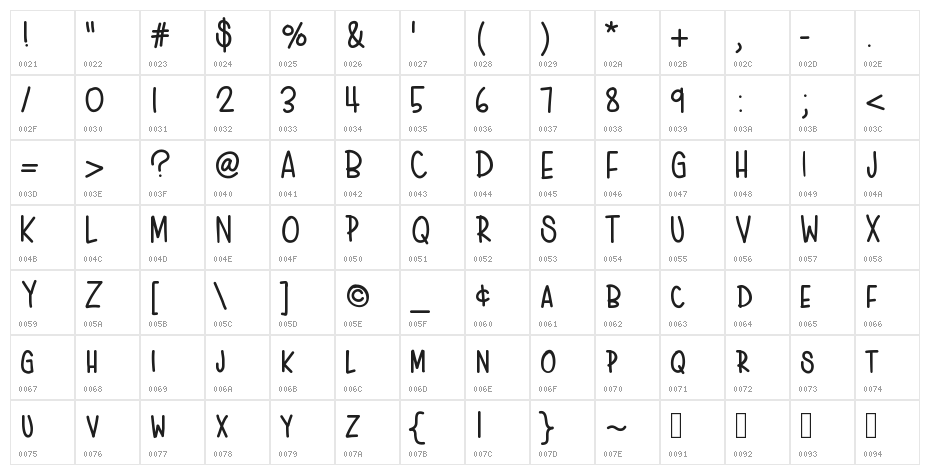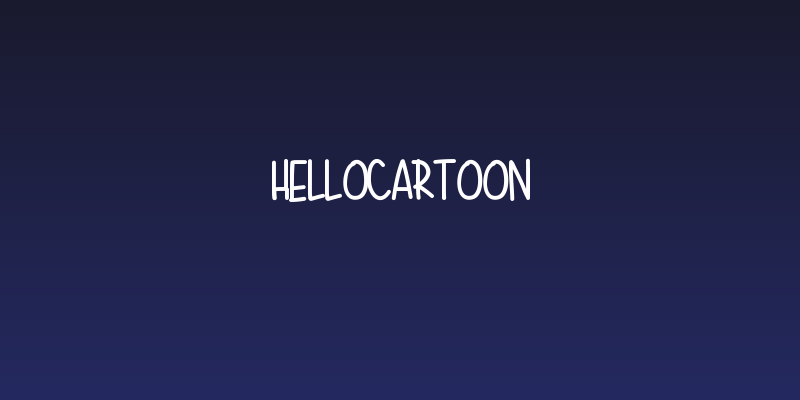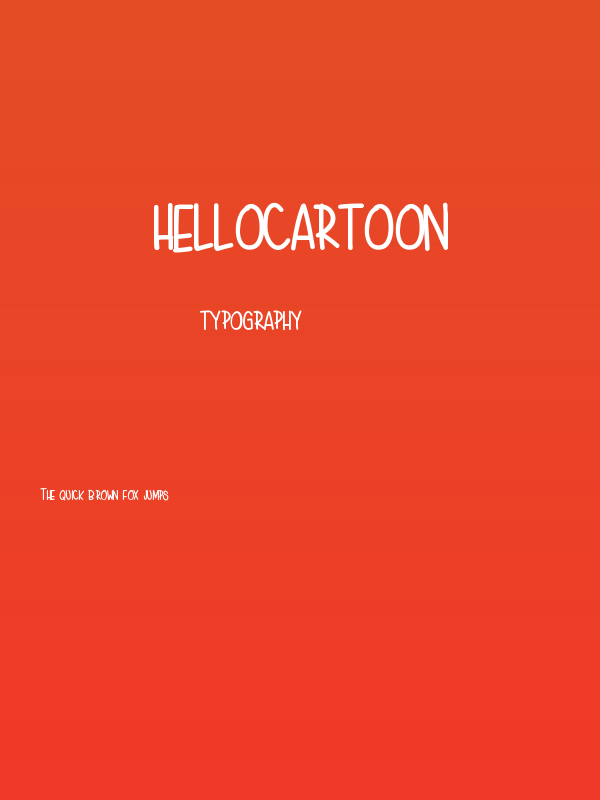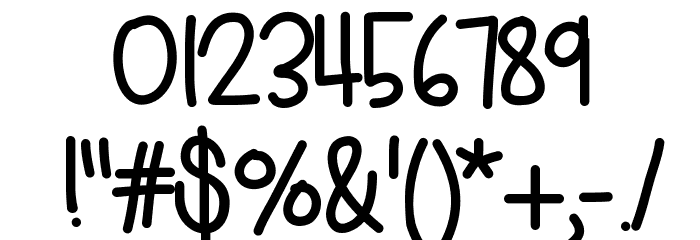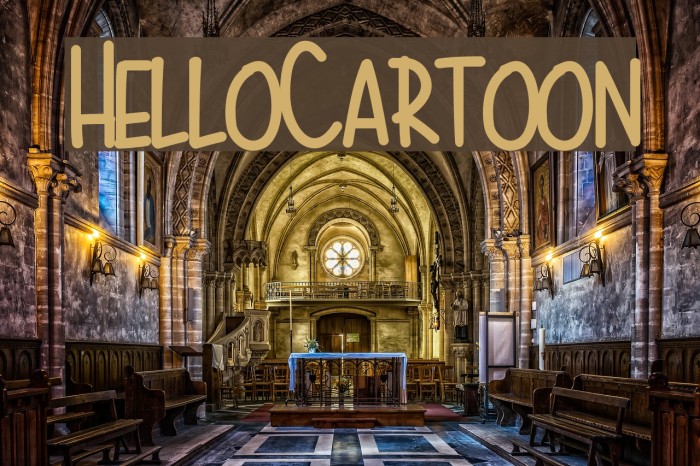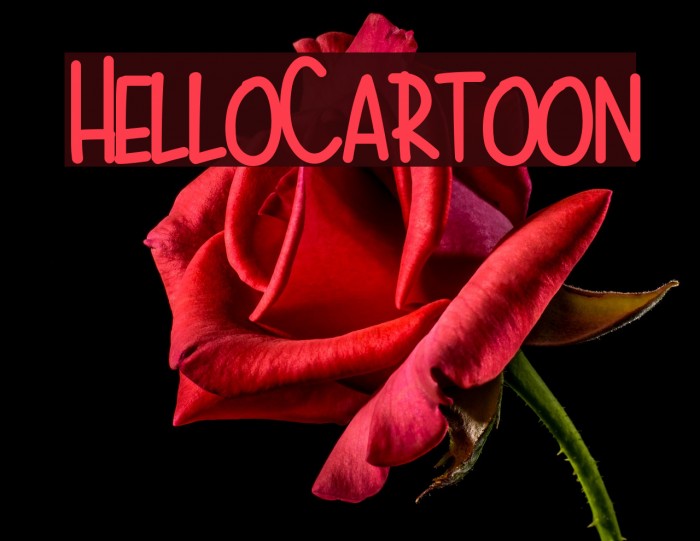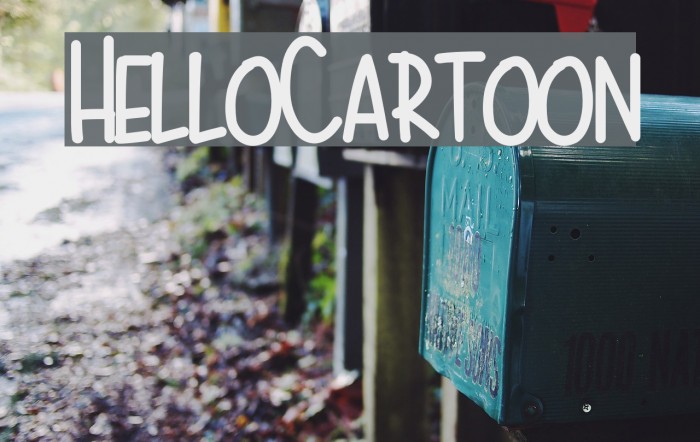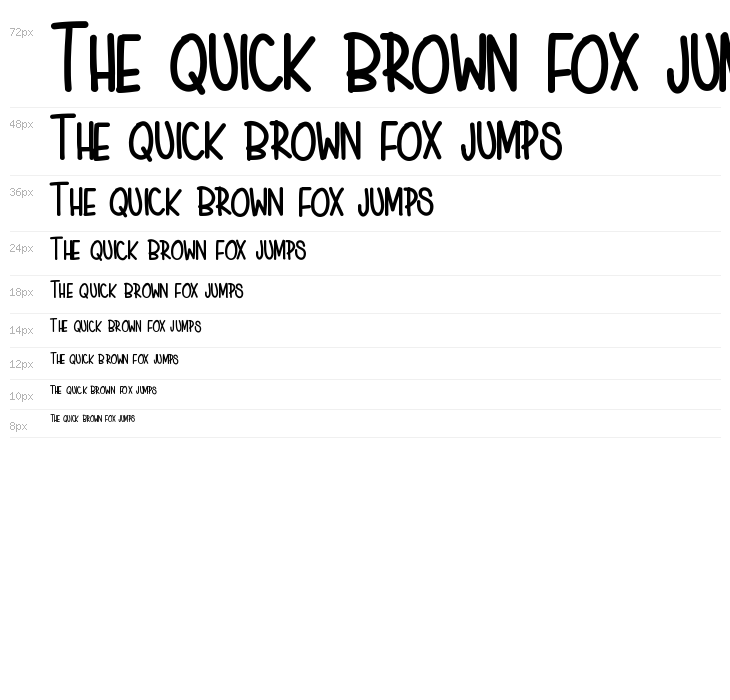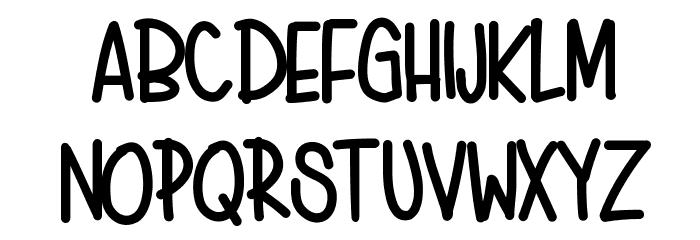
HelloCartoon Font
HelloCartoon Description
This playful and whimsical font features a hand-drawn style with rounded edges and a casual, friendly appearance. The characters are slightly irregular, adding to its charm and making it ideal for informal and fun designs. The uppercase and lowercase letters maintain a consistent style, while the numerals and special characters complement the overall look. Its unique personality makes it suitable for projects that aim to convey a sense of humor or creativity. The font's legibility is maintained despite its quirky design, making it versatile for various applications.
| Use Case | Headlines, Logos, Informal Text |
| Proposed Projects | Ideal for children's books, comic strips, greeting cards, and playful branding. |